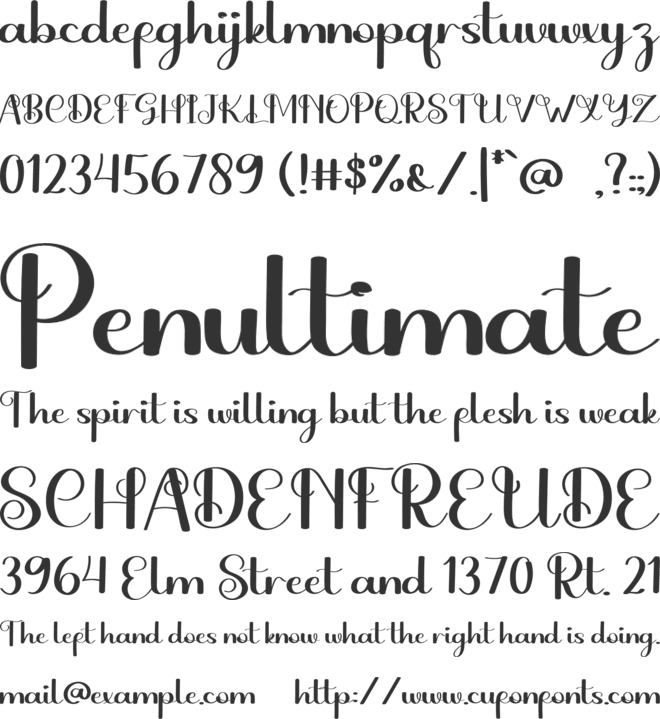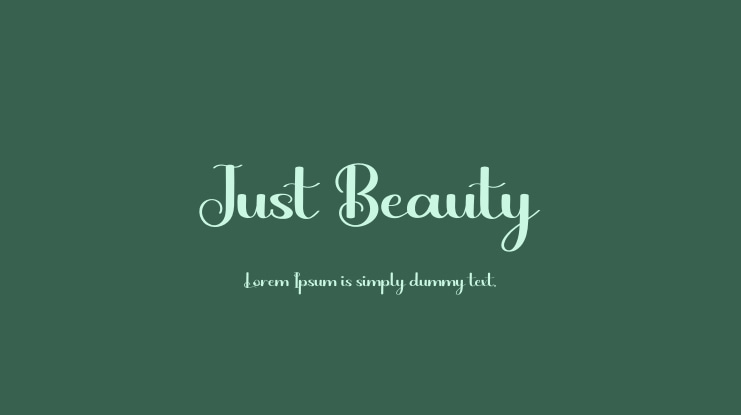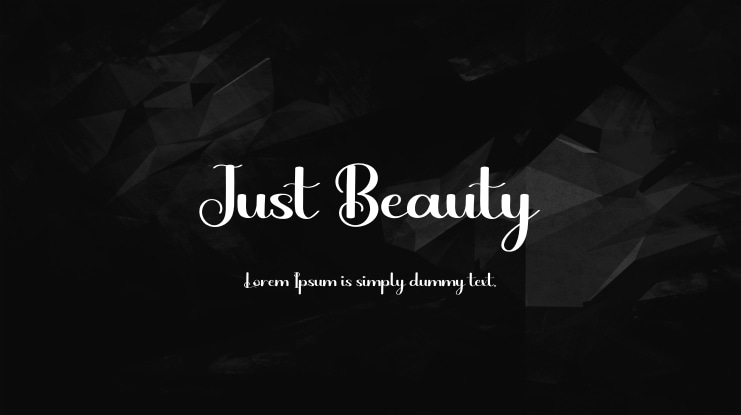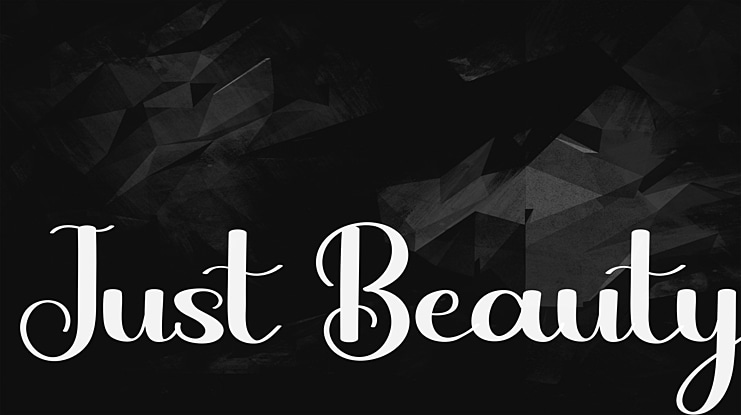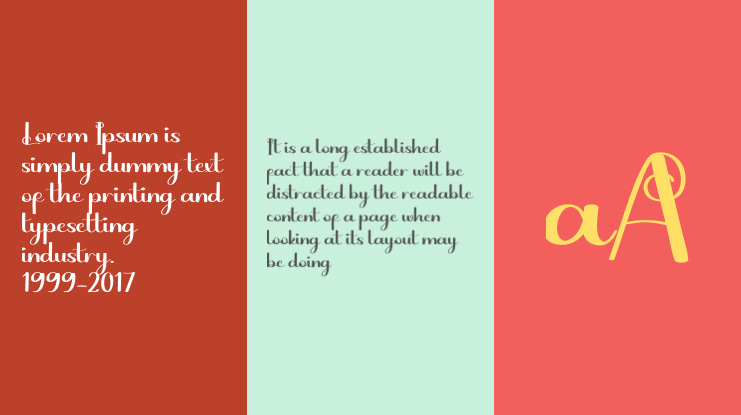
Just Beauty Font
Just Beauty is a flowing and graceful script font. Fall for its ravishing style and use it to create gorgeous wedding invitations, beautiful stationary art, eye-catching social media posts, and much more!